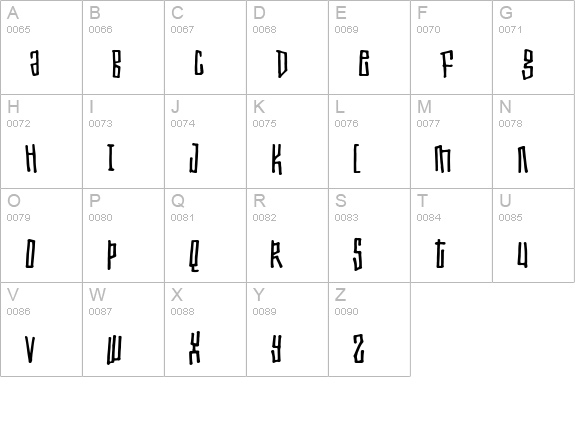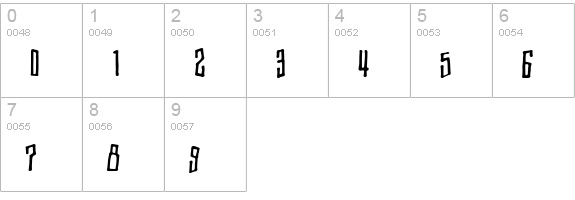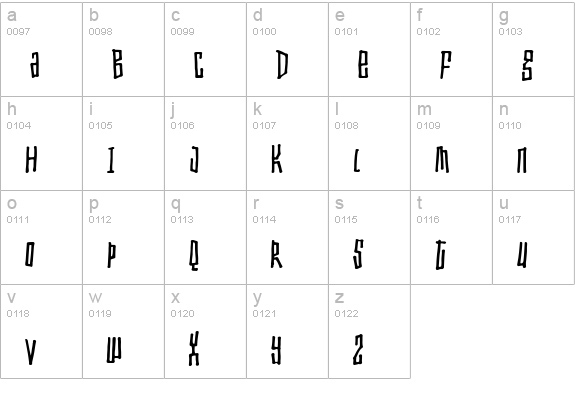
Toxic waist Font Details
Introducing Toxic Waist Font, a mesmerizing and captivating typeface that is bound to leave a lasting impression. This font embodies a unique blend of edginess and sophistication, making it the perfect choice for those seeking to add a touch of individuality to their projects. Toxic Waist Font features bold, sharp lines that exude confidence and power, while maintaining a sense of elegance and refinement. Its distinct letterforms create a dynamic and energetic visual impact, drawing attention and commanding presence. What makes this font even more incredible is that it is available for free! Yes, you heard it right. Toxic Waist Font can be freely downloaded from FontsMarket.com, ensuring that you have access to this exceptional typeface without any hassle or cost. Whether you're designing eye-catching logos, attention-grabbing headlines, or captivating social media graphics, Toxic Waist Font will effortlessly elevate your creations to new heights. Its versatility allows it to seamlessly integrate into various design projects, from modern and futuristic to bold and rebellious. So, why settle for ordinary when you can embrace the extraordinary with Toxic Waist Font? Download it for free today at FontsMarket.com and unleash your creativity like never before. Get ready to make a statement with this daring and captivating typeface that is sure to leave a lasting impression on your audience.